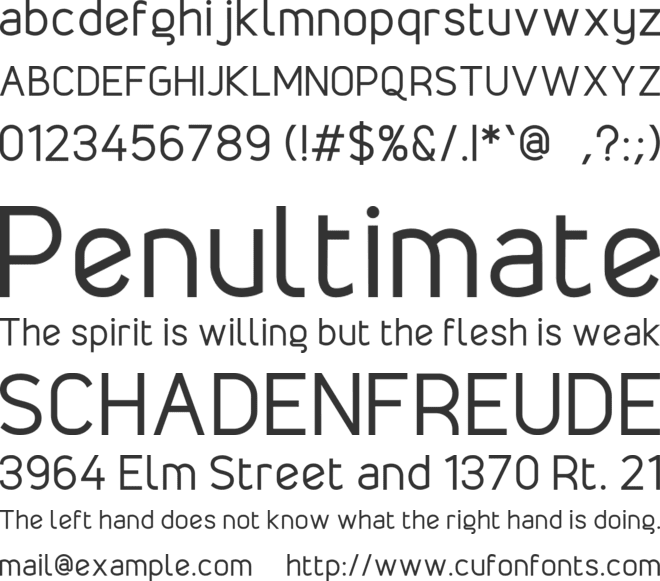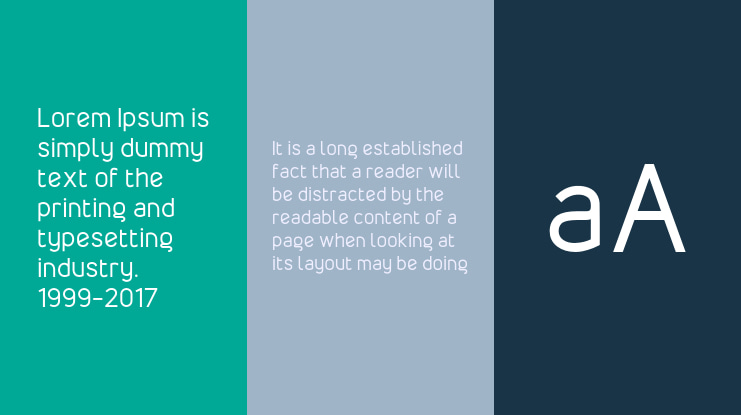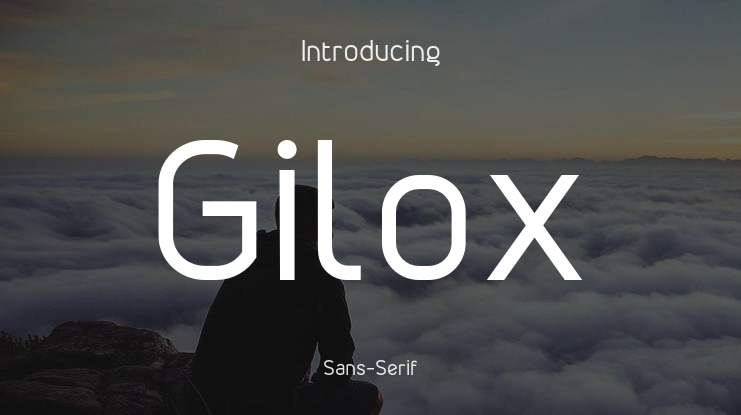
Gilox Font
Gilox is a sharp and contemporary sans-serif typeface built for modern visual design. With its clean geometry, smooth curves, and confident letter structure, Gilox offers a fresh and striking appearance suitable for branding, editorial layout, packaging, and more.